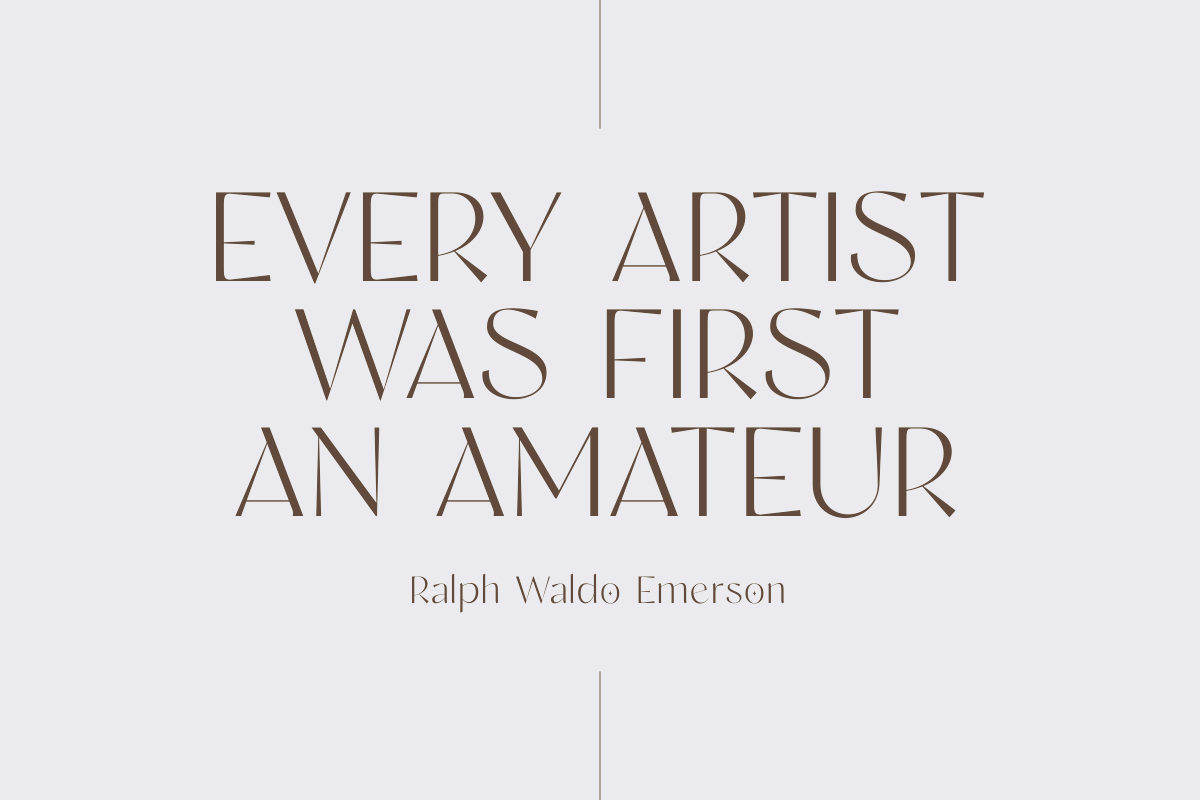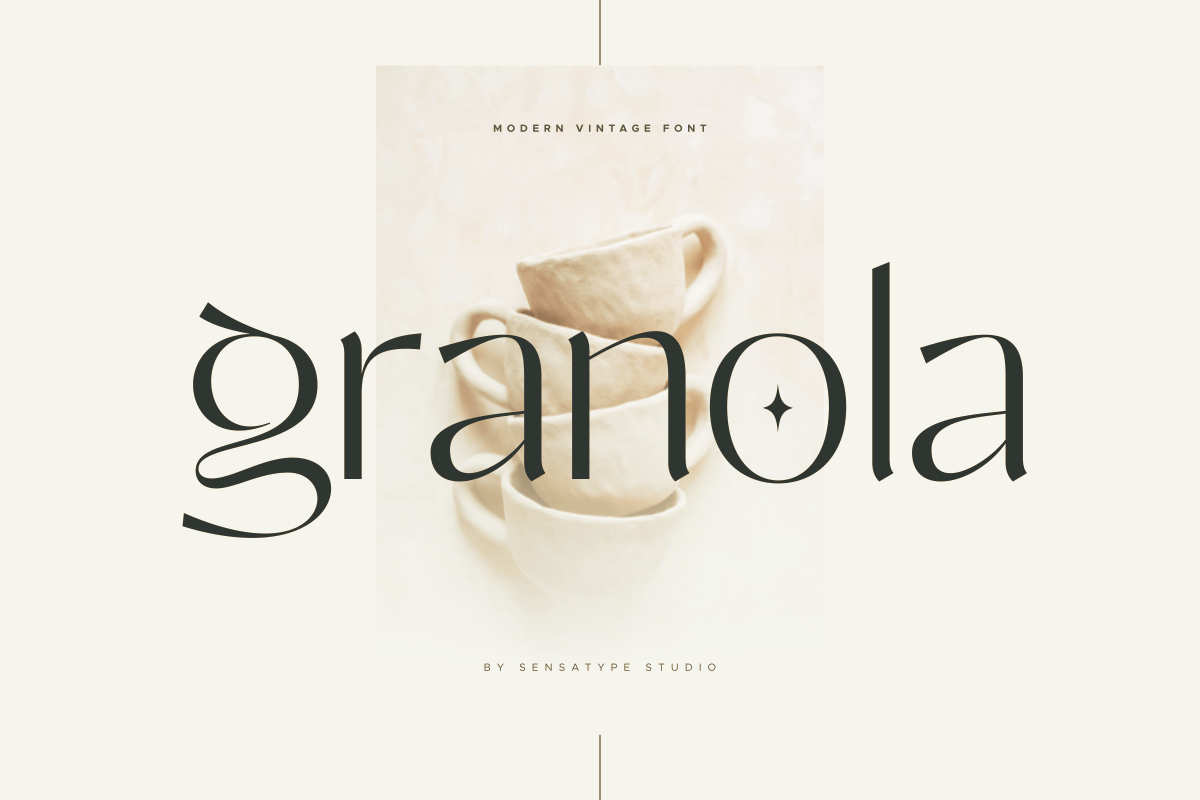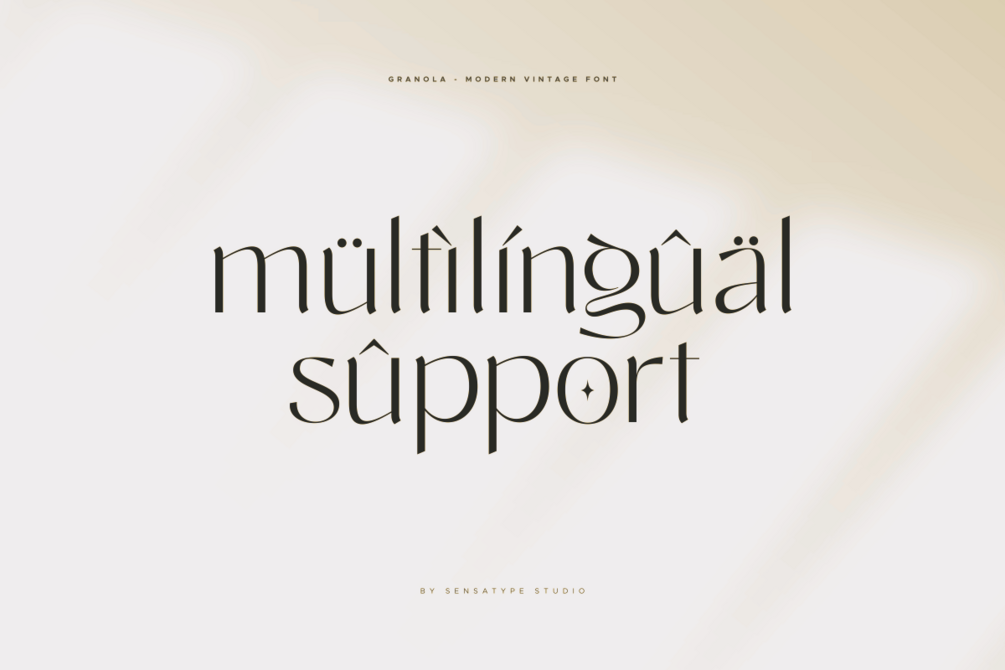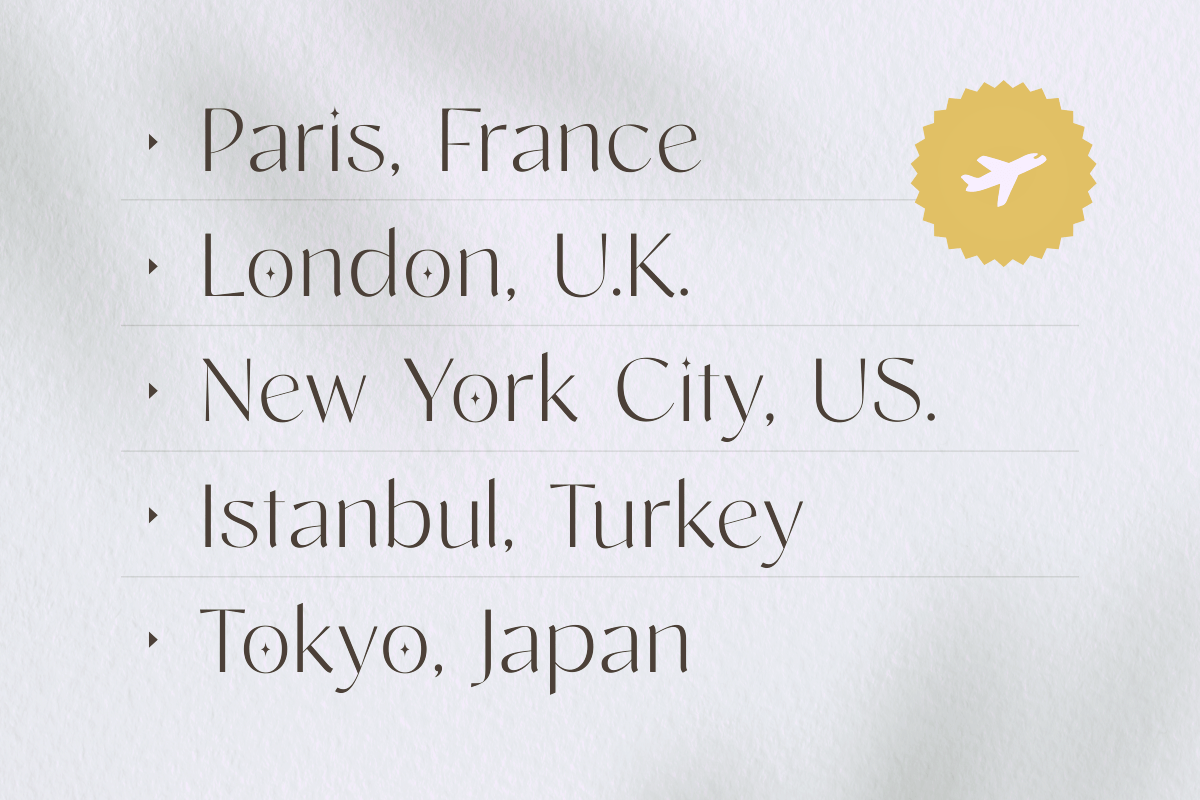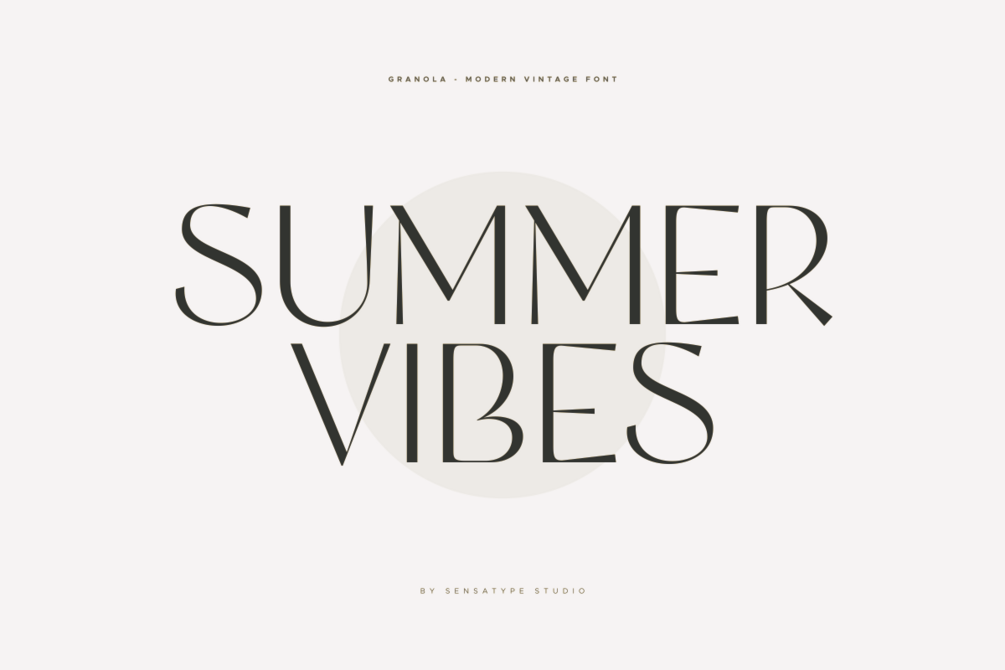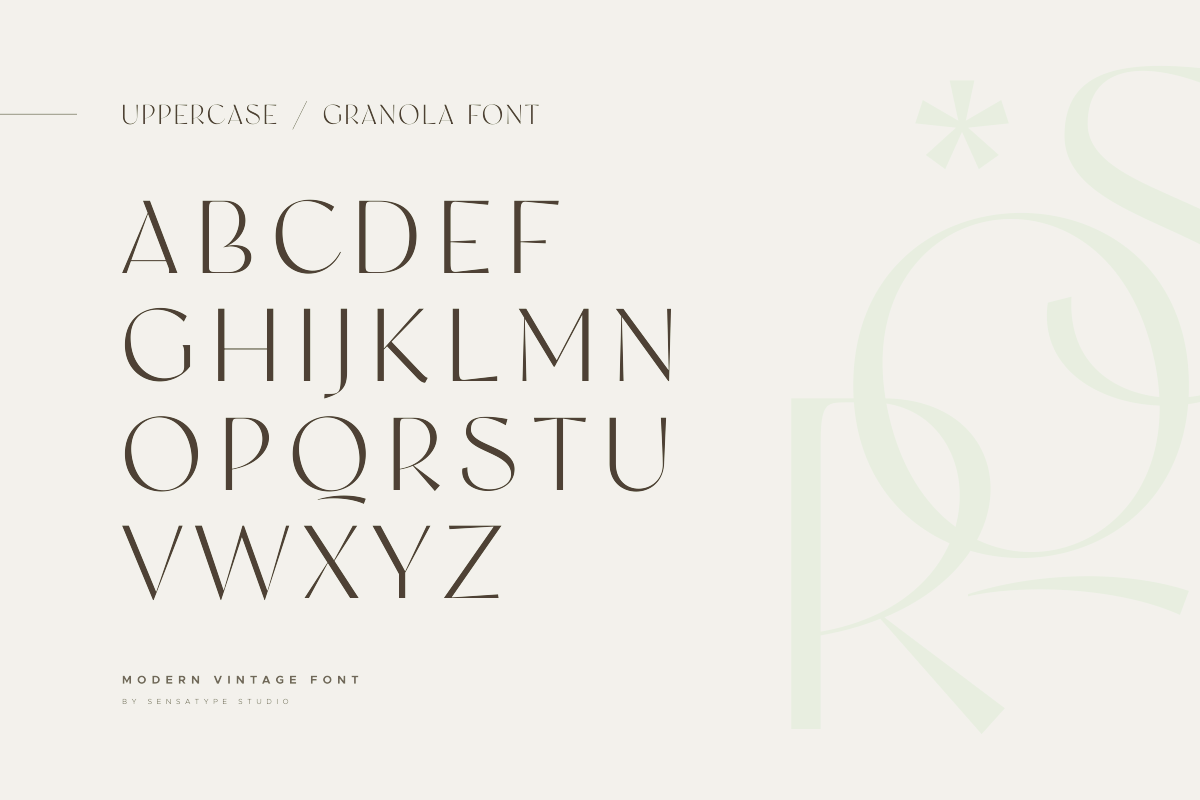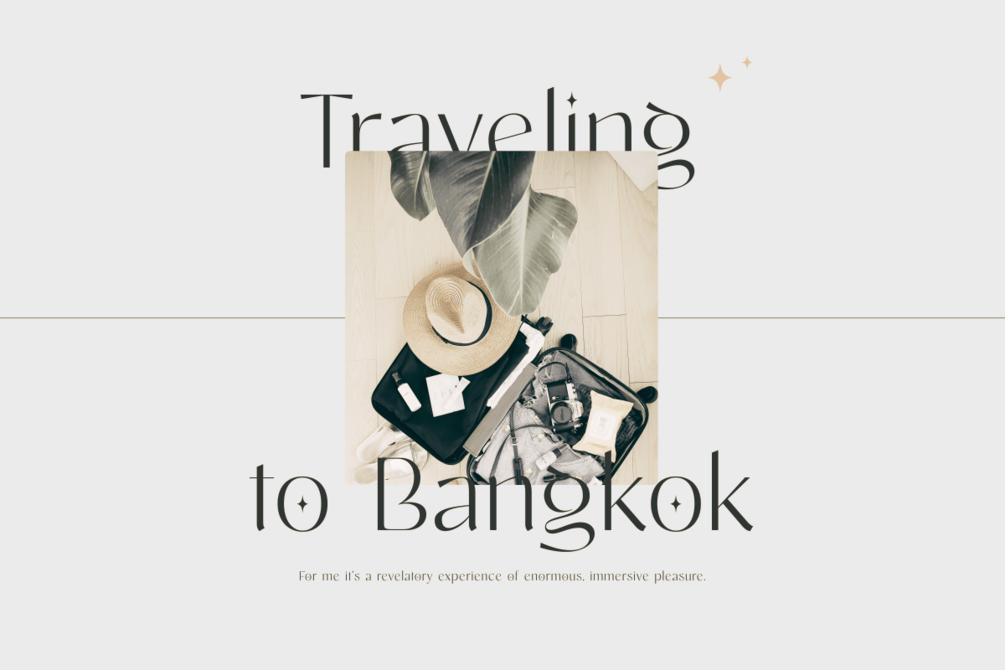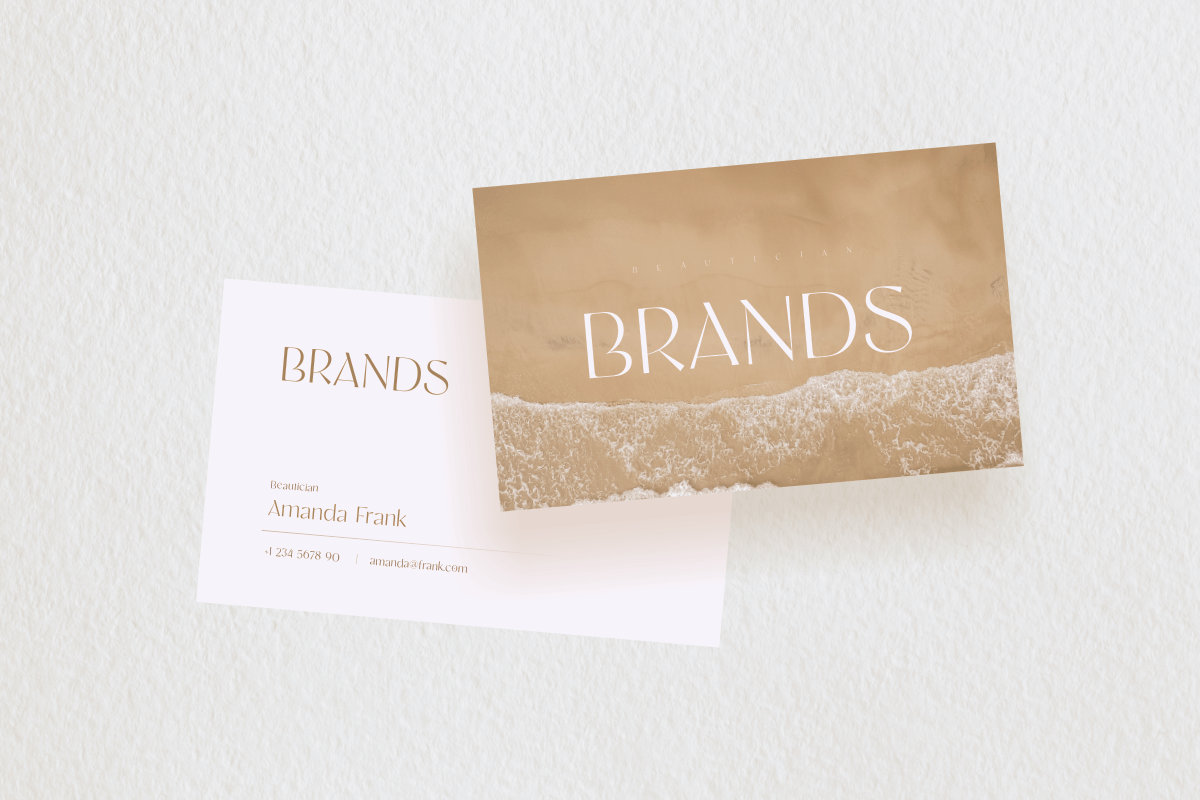
Granola - Unique Modern Vintage Font
Granola is a unique modern vintage font crafted to give your designs a retro yet contemporary feel. Ideal for branding, logos, packaging, social media, and editorial projects, it blends vintage charm with modern elegance.
With distinctive letterforms and high readability, Granola ensures your designs stand out while remaining polished and professional across both digital and print media.
Granola – Unique Modern Vintage Font Features
• Distinctive modern vintage character set
• Perfect for logos, branding, and stylish designs
• Uppercase, lowercase, numerals, and punctuation included
• OpenType features for extra versatility
• Multilingual support